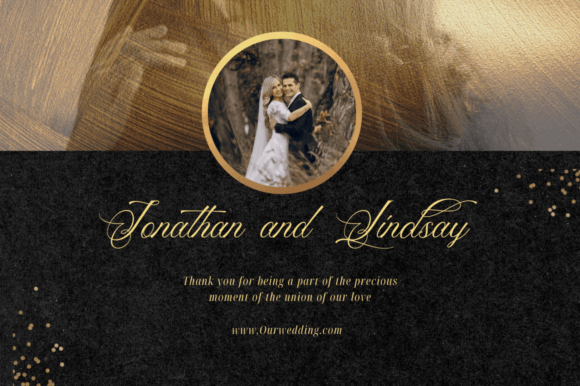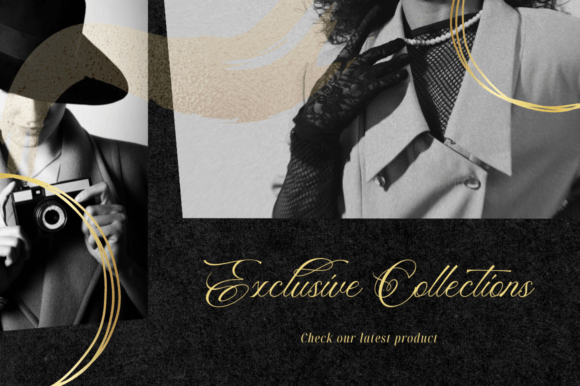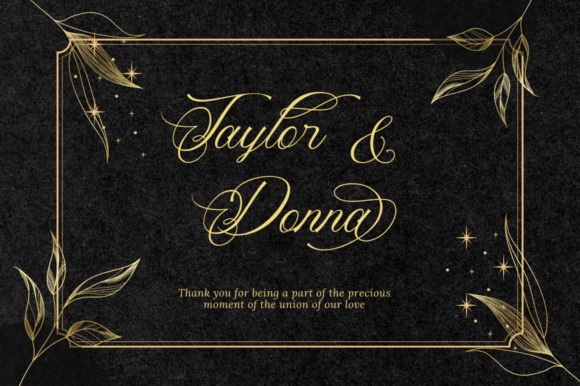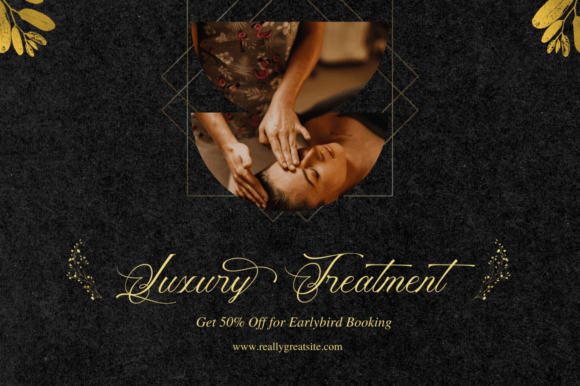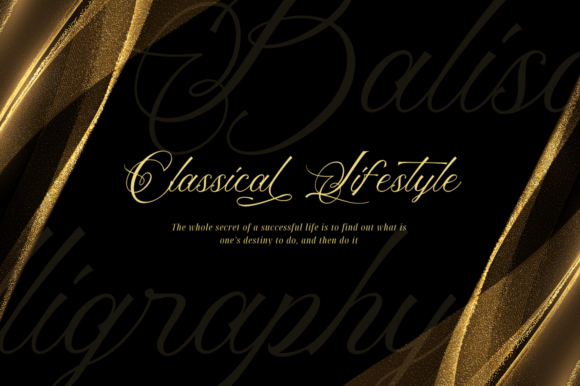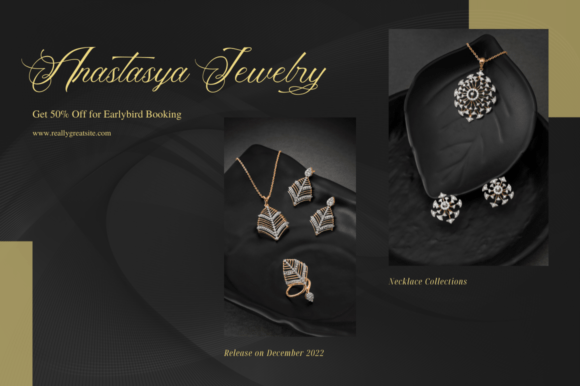
The Perfect Blend of Elegance and Whimsy: Introducing the Balisay Font
Have you ever stumbled upon a font that immediately sparks your creativity and sets your imagination on fire? For designers, this moment is a treasure to behold. It’s like stumbling upon a hidden gem that transforms your work from ordinary to extraordinary. And that’s exactly what the Balisay Font does – it adds a touch of elegance and whimsy to your designs, making them truly unforgettable.
Developed specifically for branding, invitations, and social media posts, the Balisay Font is a beautiful handwritten font that exudes sophistication and charm. Whether you’re working on a wedding design, product packaging, or a special event invitation, this font is sure to elevate your work to new heights. Its versatility and unique charm make it a valuable addition to any designer’s toolkit.
Balisay Font Key Features
- Font Family: Balisay is a font family designed for the Balisay language, a member of the Austronesian language family.
- Unique Characteristics: Features a unique blend of traditional and modern elements, making it suitable for various design applications.
- Language Support: Designed to support the Balisay language, but also includes support for other languages such as Filipino and English.
- Font Style: Offers a range of font styles, including regular, italic, bold, and bold italic, for added flexibility in design.
I recently had the chance to work with the Balisay font, and I must say it’s a unique and interesting addition to any design project. ✨ The font’s irregular, hand-drawn feel gives it a lot of character and makes it perfect for projects that need a touch of personality.
Here are some of the things that I think work well with the Balisay font:
- ✨ The font’s organic feel makes it perfect for projects that need a more human touch
- ✨ It’s great for creating a sense of movement and energy, especially when used in conjunction with bold, dynamic imagery
- ✨ The font’s irregularities make it more interesting to read than a traditional, serif font
- ⚠️ The font may be difficult to read at smaller sizes, especially for people with vision impairments
- ⚠️ It’s not ideal for projects that require a lot of text, as it can be tiring to read in large quantities
- ⚠️ The font’s irregularities can sometimes make it difficult to align text properly
Overall, I think the Balisay font is a great choice for projects that need a unique, hand-drawn feel. While it may have some limitations, it’s definitely worth considering for the right project.
The Balisay font is ideal for:
- Creating cultural or historical designs.
- Adding a unique touch to digital art projects.
- Designing business cards, flyers, or brochures.
For best results, use the Balisay font in conjunction with bold or italic styles to add emphasis and create visual interest.